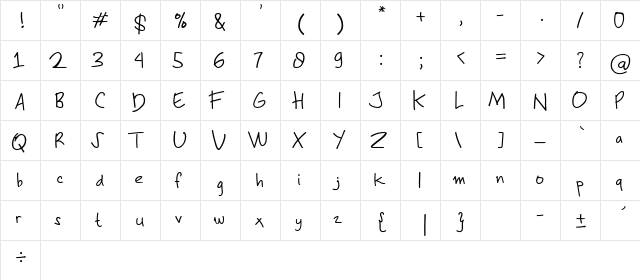
Andila Regular
Design Context for Andila Typeface
Andila is a composed and adaptable typeface that performs quietly and consistently across a wide range of design contexts.